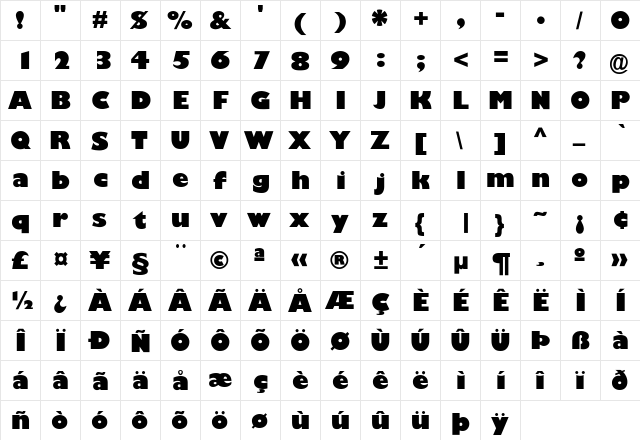
GarrisonKayo Regular
Design Context for GarrisonKayo Typeface
GarrisonKayo is a composed and adaptable typeface that performs quietly and consistently across a wide range of design contexts.